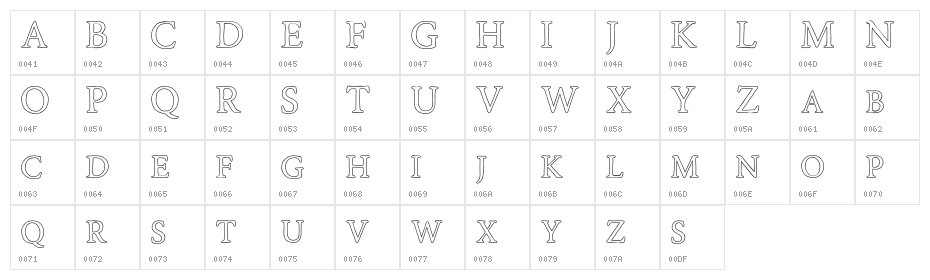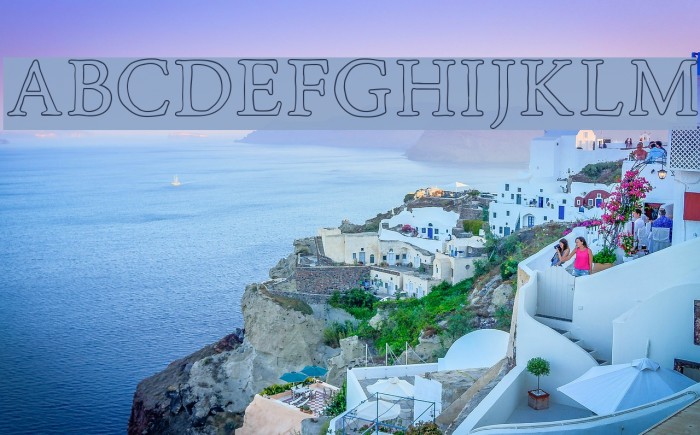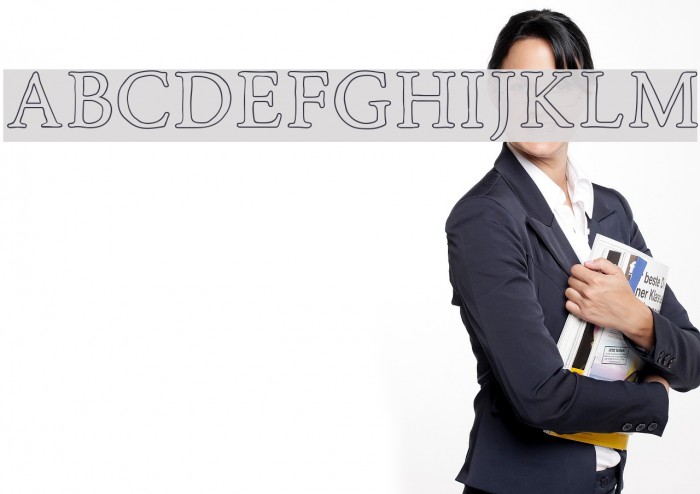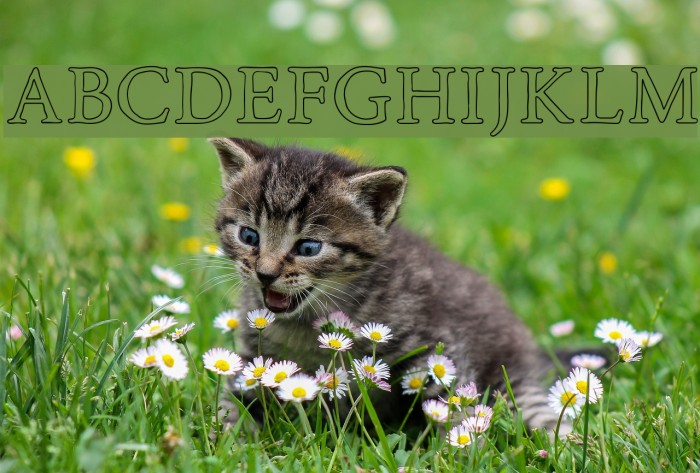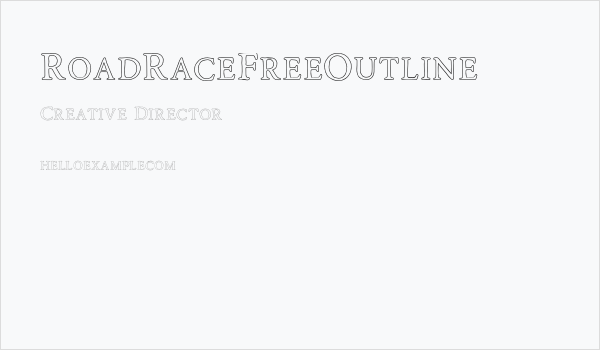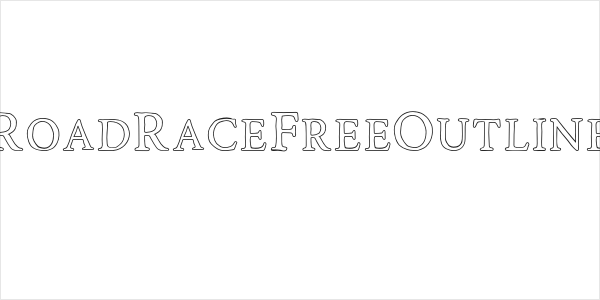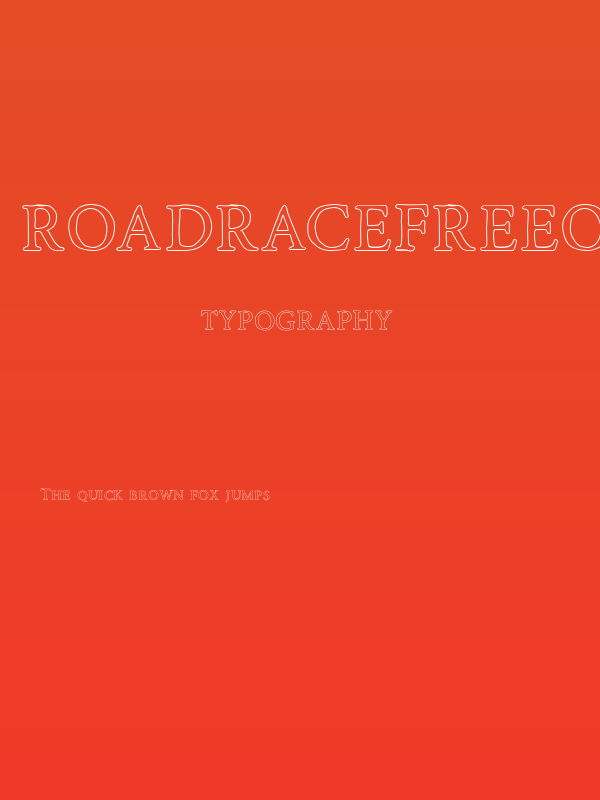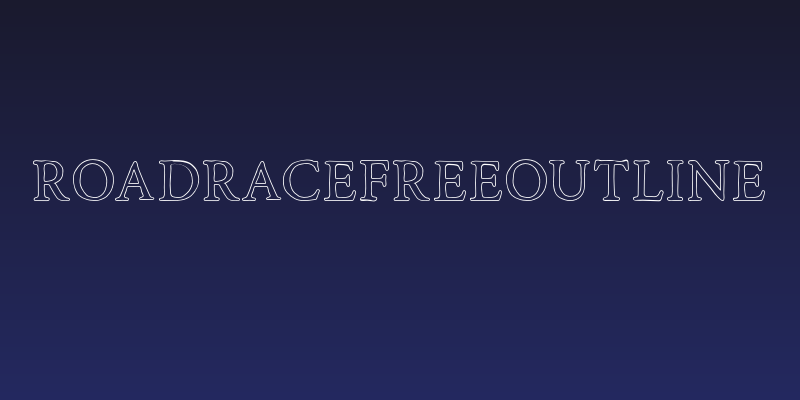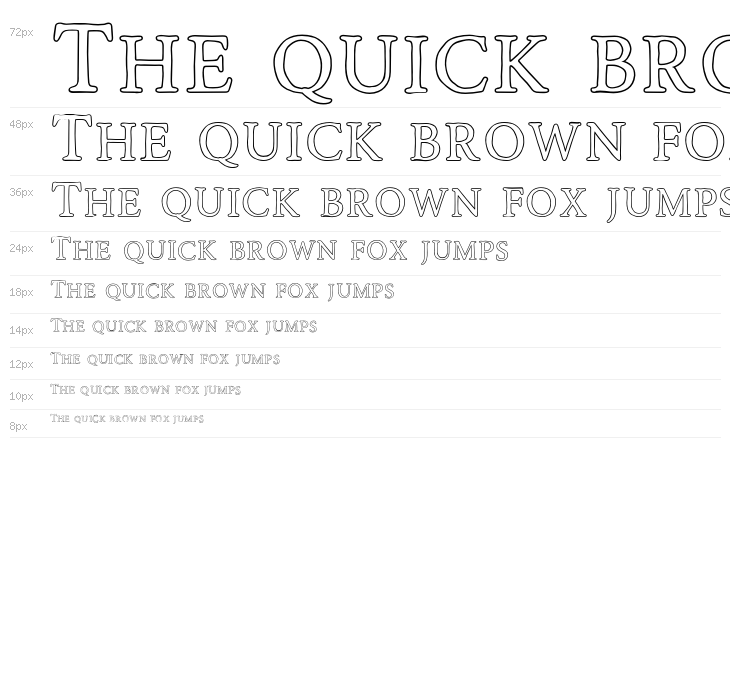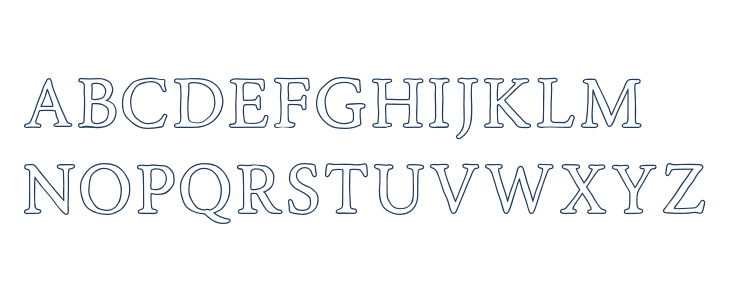
RoadRaceFree-Outline Font
RoadRaceFree-Outline Description
This font features a distinctive outline style that gives it a bold and striking appearance. The uppercase letters are evenly spaced and maintain a consistent height, creating a uniform look across the alphabet. The outline effect adds a layer of depth and dimension, making the characters stand out prominently. The font's design is clean and modern, with a touch of elegance due to the serif elements. The strokes are uniform in width, contributing to a balanced and harmonious aesthetic. This font is ideal for projects that require a strong visual impact while maintaining readability.
| Proposed Projects | Ideal for headlines, posters, branding, and any design requiring a strong visual impact. |